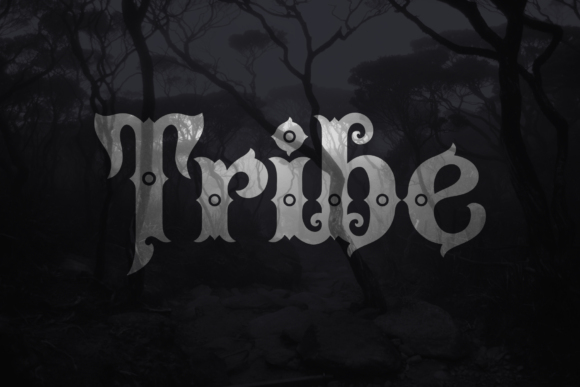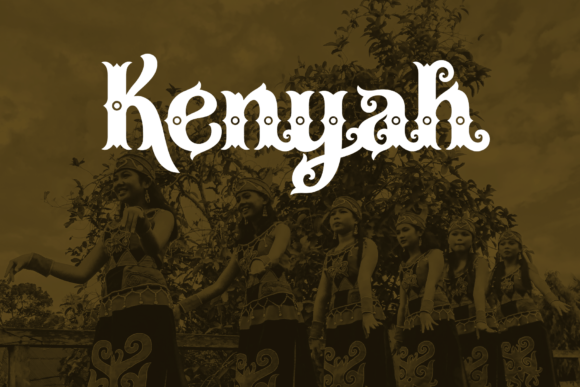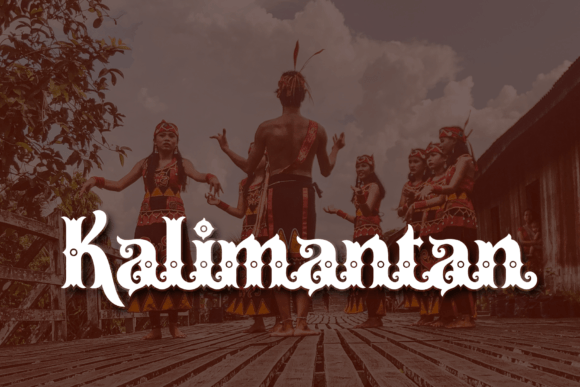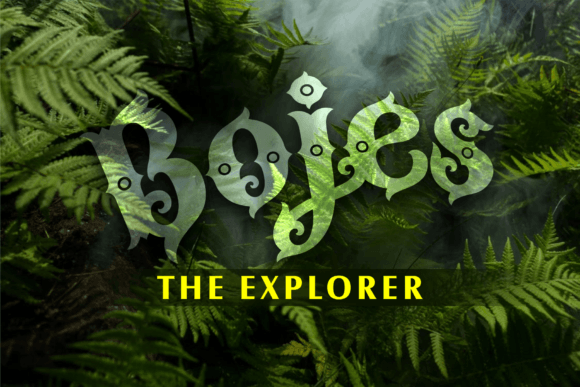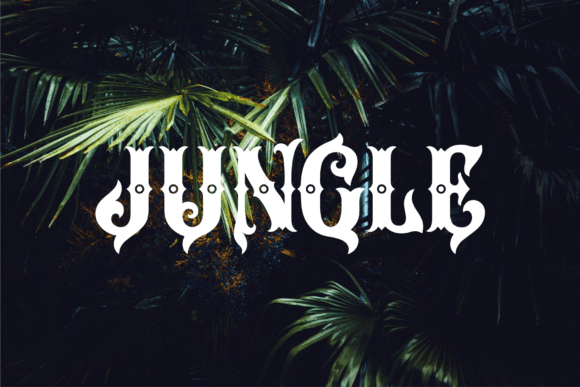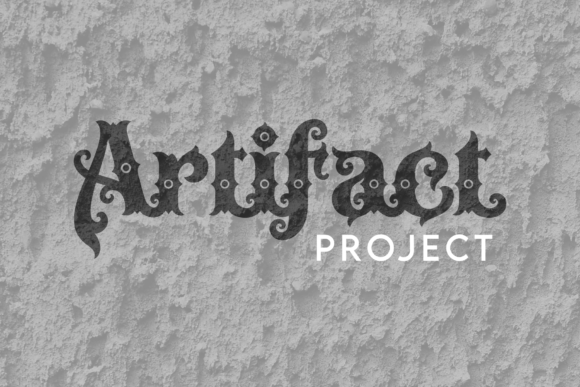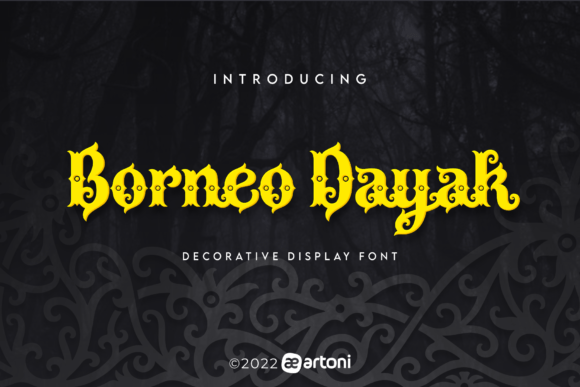
Borneo Dayak Font: Unleash the Beauty of Traditional Dayak Art in Your Designs
Are you a designer or crafter looking for a unique and inspiring font to add a touch of cultural flair to your creations? Look no further than the Borneo Dayak Font, a decorative display font that captures the essence of traditional Dayak art from Borneo, Indonesia. This stunning font is a wonderful asset to any font library, and is sure to enhance any project with its distinctive and eye-catching style.
The Inspiration Behind Borneo Dayak Font
The Dayak tribe, indigenous to the island of Borneo (also known as Kalimantan, Indonesia), has a rich cultural heritage that is reflected in their traditional art. Characterized by intricate patterns, bold lines, and symbolic motifs, Dayak art is a vibrant expression of the tribe’s history, mythology, and spiritual beliefs. The Borneo Dayak Font draws inspiration from these traditional art forms, bringing the beauty and essence of Dayak culture to your designs.
Unique Features of Borneo Dayak Font
Borneo Dayak Font is a decorative display font that boasts a range of unique features, making it perfect for a variety of design applications. Some of its key characteristics include:
- Intricate patterns and details: The font features intricate patterns and details inspired by traditional Dayak art, adding a level of sophistication and elegance to your designs.
- Bold and striking lines: The font’s bold lines and curves create a striking visual effect, making it perfect for headlines, titles, and other display text.
- Symbolic motifs: The font includes a range of symbolic motifs and glyphs, allowing you to add an extra layer of meaning and cultural significance to your designs.
Uses for Borneo Dayak Font
Borneo Dayak Font is a versatile font that can be used in a wide range of design applications, including:
- Graphic design: Use the font to create stunning posters, flyers, brochures, and other marketing materials that showcase your brand’s personality and style.
- Crafting and DIY projects: Add a touch of cultural flair to your crafting and DIY projects, such as handmade cards, gift tags, and other paper crafts.
- Web design: Use the font to create eye-catching headings and titles for your website, adding a unique and memorable touch to your online presence.
Why Choose Borneo Dayak Font?
With so many fonts available, why choose Borneo Dayak Font? Here are just a few reasons why this font stands out:
- Unique and distinctive style: Borneo Dayak Font offers a truly unique and distinctive style that will set your designs apart from the crowd.
- Cultural significance: By using this font, you’re helping to promote and preserve the cultural heritage of the Dayak tribe.
| Font Name | Borneo Dayak Font |
| Author | ARToni |
Borneo Dayak Font is a stunning decorative display font that is sure to inspire and enhance your designs. With its intricate patterns, bold lines, and symbolic motifs, this font is a wonderful asset to any font library. Whether you’re a designer, crafter, or DIY enthusiast, Borneo Dayak Font is a great choice for anyone looking to add a touch of cultural flair to their creations. So why wait? Download Borneo Dayak Font today and unleash the beauty of traditional Dayak art in your designs!